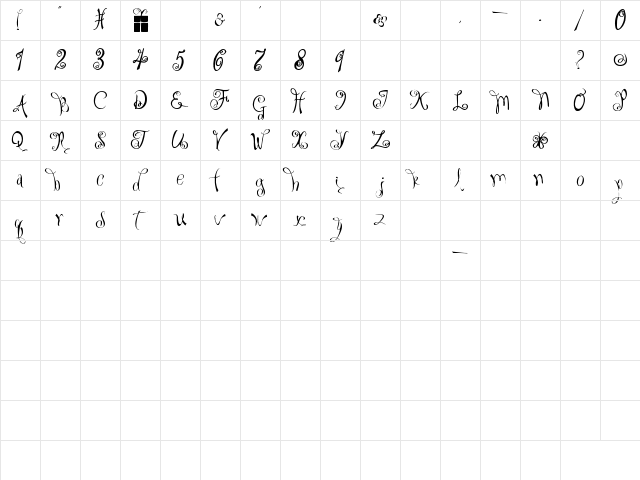
I'm Bored Regular Font Preview
I'm Bored Regular
Design Context for I'm Bored Typeface
I'm Bored is a composed and adaptable typeface that performs quietly and consistently across a wide range of design contexts.